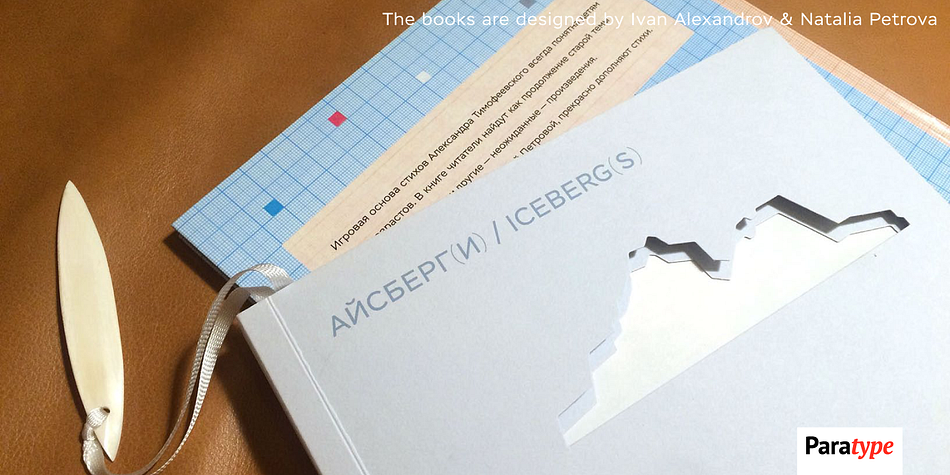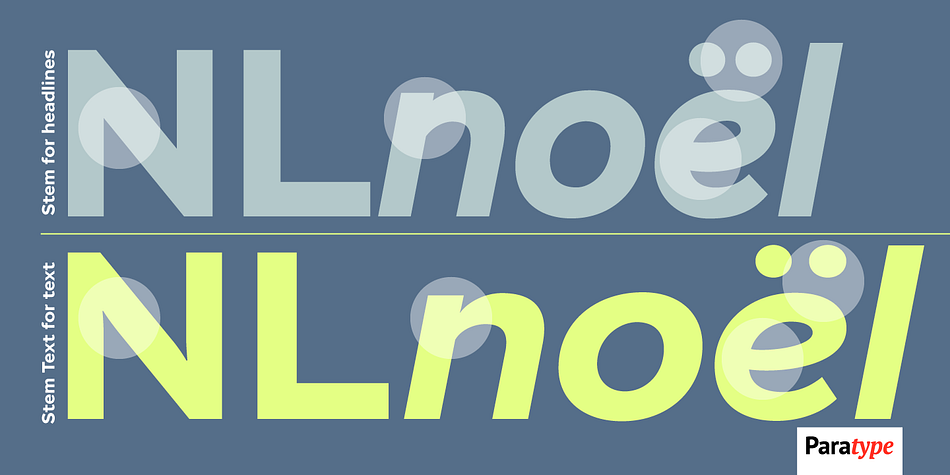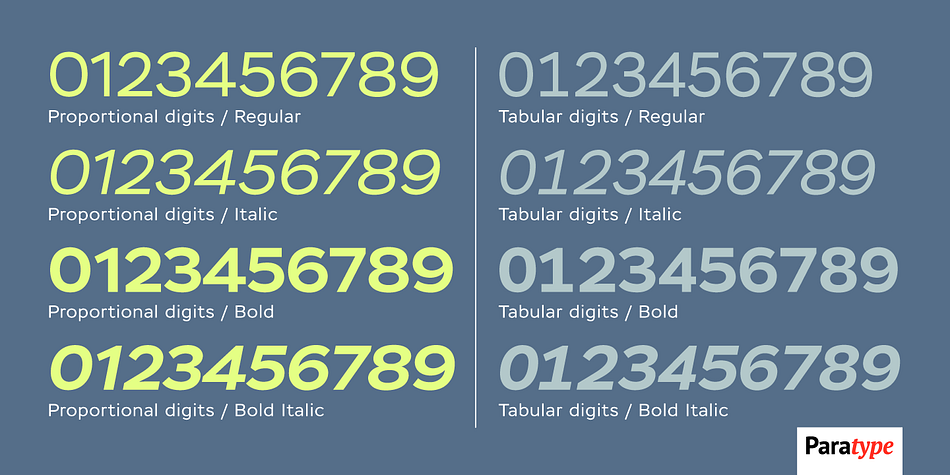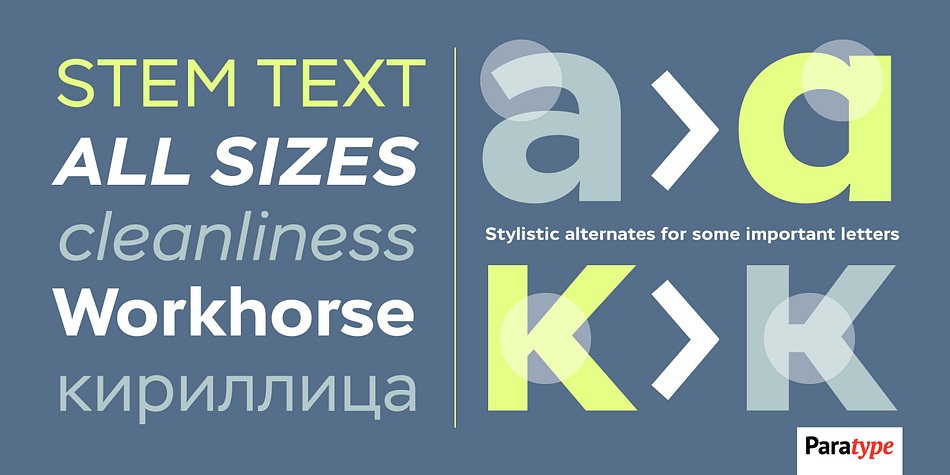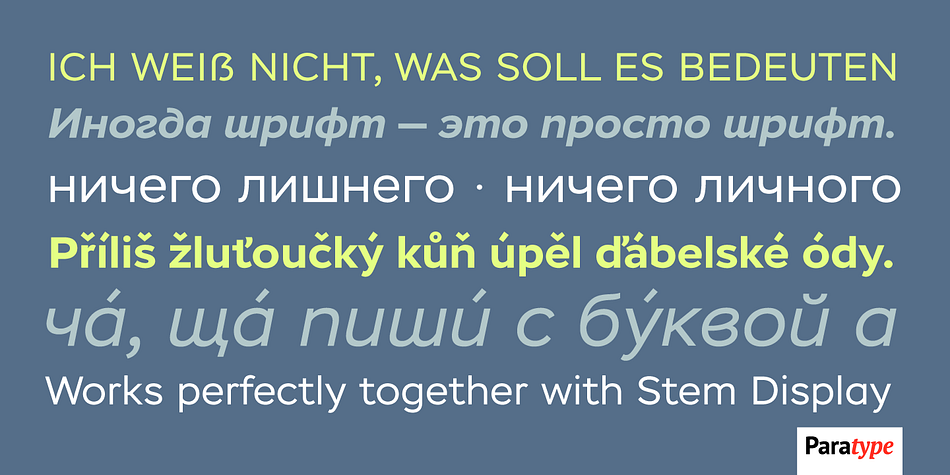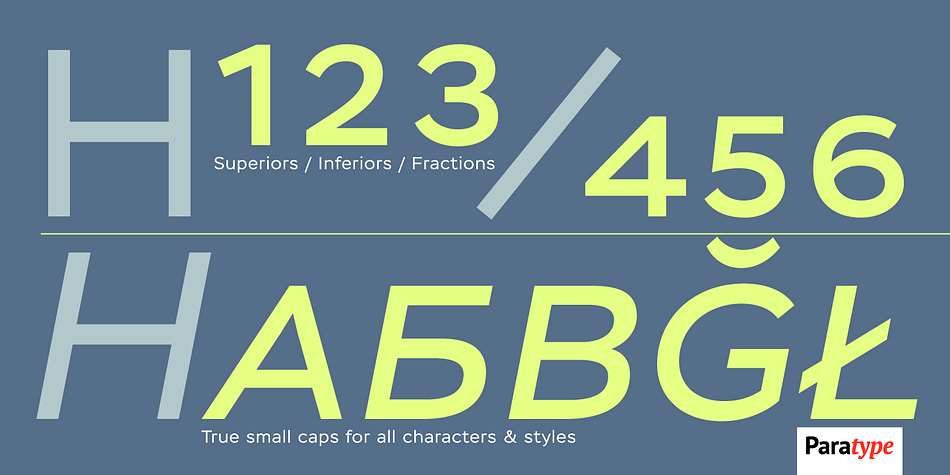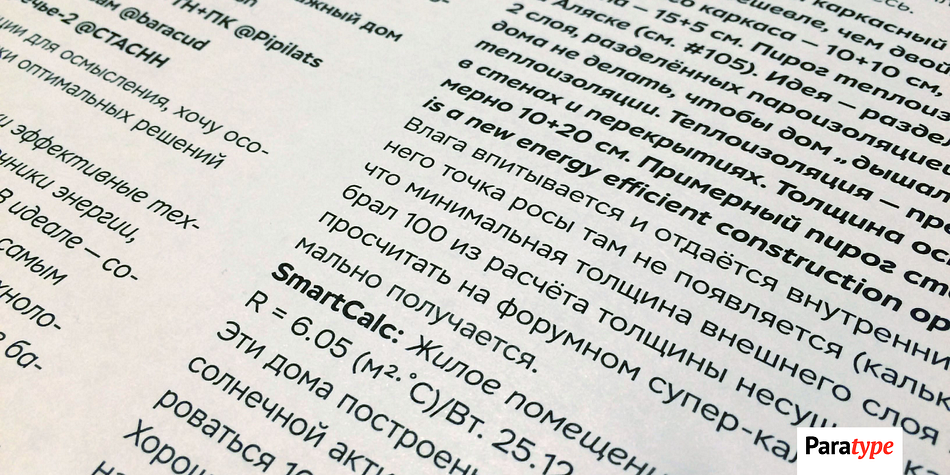
Designed by Isabella Chaeva, Alexandra Korolkova and Maria Selezeneva, Stem Text is a sans serif font family. This typeface has four styles and was published by ParaType.
Stem Text is a workhorse typeface, a geometric sans-serif with a semi-closed aperture and a large x-height. The design of Stem Text allows to use it in body text sizes as well as in headlines.
Stem Text is fully compatible with Stem, so the styles of Stem can be used as display styles together with Stem Text in text setting.
Design—Alexandra Korolkova with the assistance of Maria Selezeneva and Isabella Chaeva. Released by ParaType in 2015.